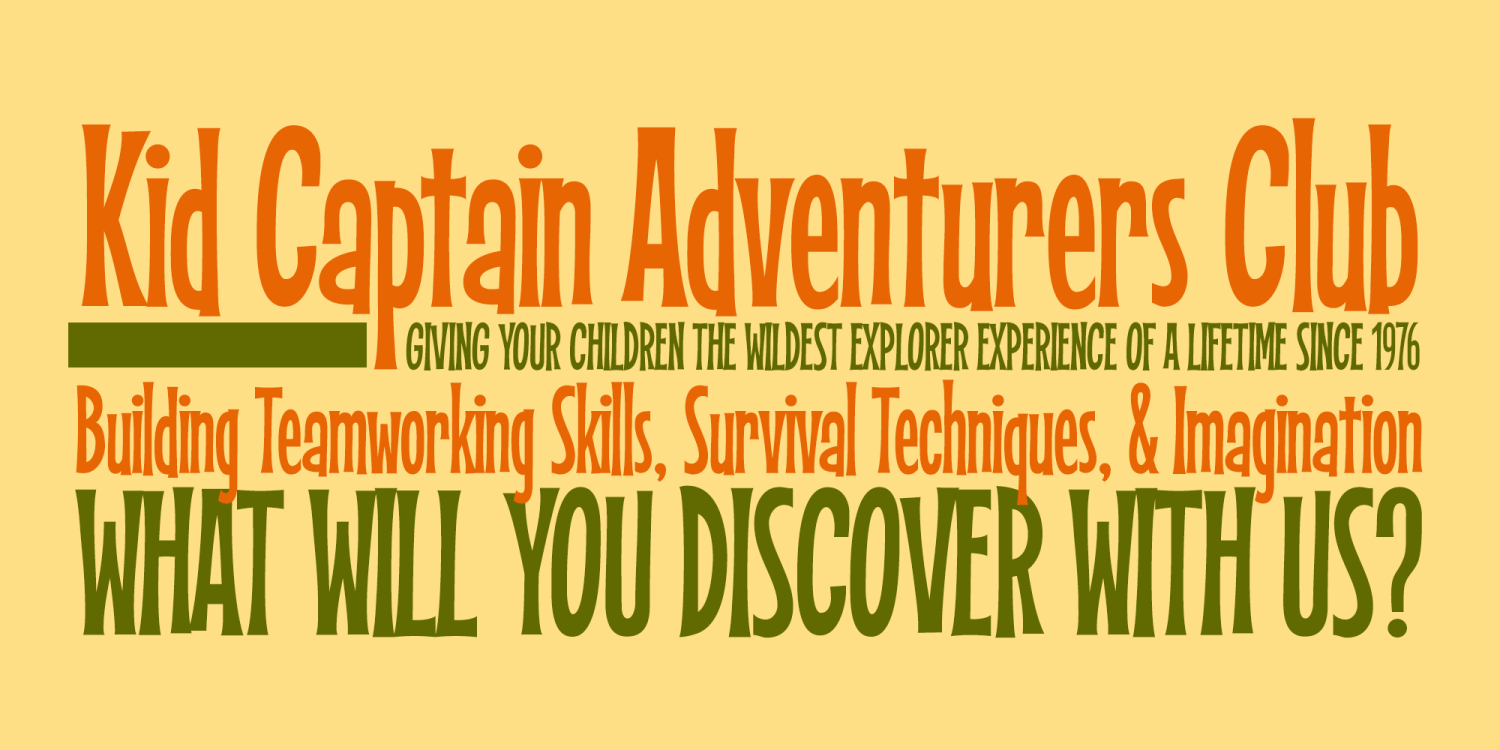
About Cattleprod PB
Cattleprod is an offbeat slab serif font full of swagger. It was created without any reference, but just the idea of a playful somewhat stumbling stance in mind.
Cattleprod PB Regular by Pink Broccoli